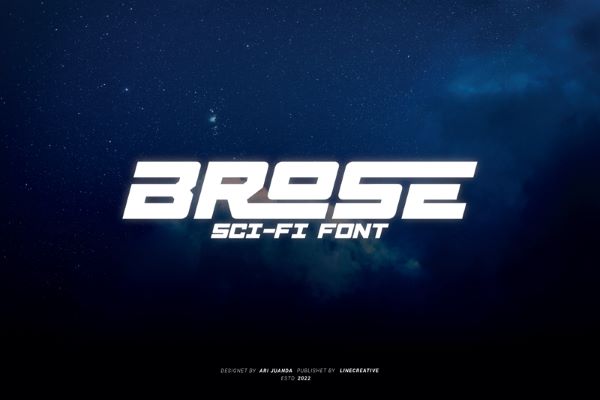
Brose Font
Brose Font is an Esports Font by Linecreative that combines bold all-caps construction with sharp ligature details and a slanted, high-energy attitude that instantly reads as fast, powerful, and modern. Its distinctive visual character sets it apart from ordinary bold typefaces — this is a font designed for impact, built for brands that don’t do subtle.
Ideal for automobile galleries, sports websites, news channel logos, gaming brands, music projects, and any creative work demanding raw visual energy without lowercase compromise. Browse our full library of Free Fonts and discover more powerful display typefaces from independent designers worldwide.